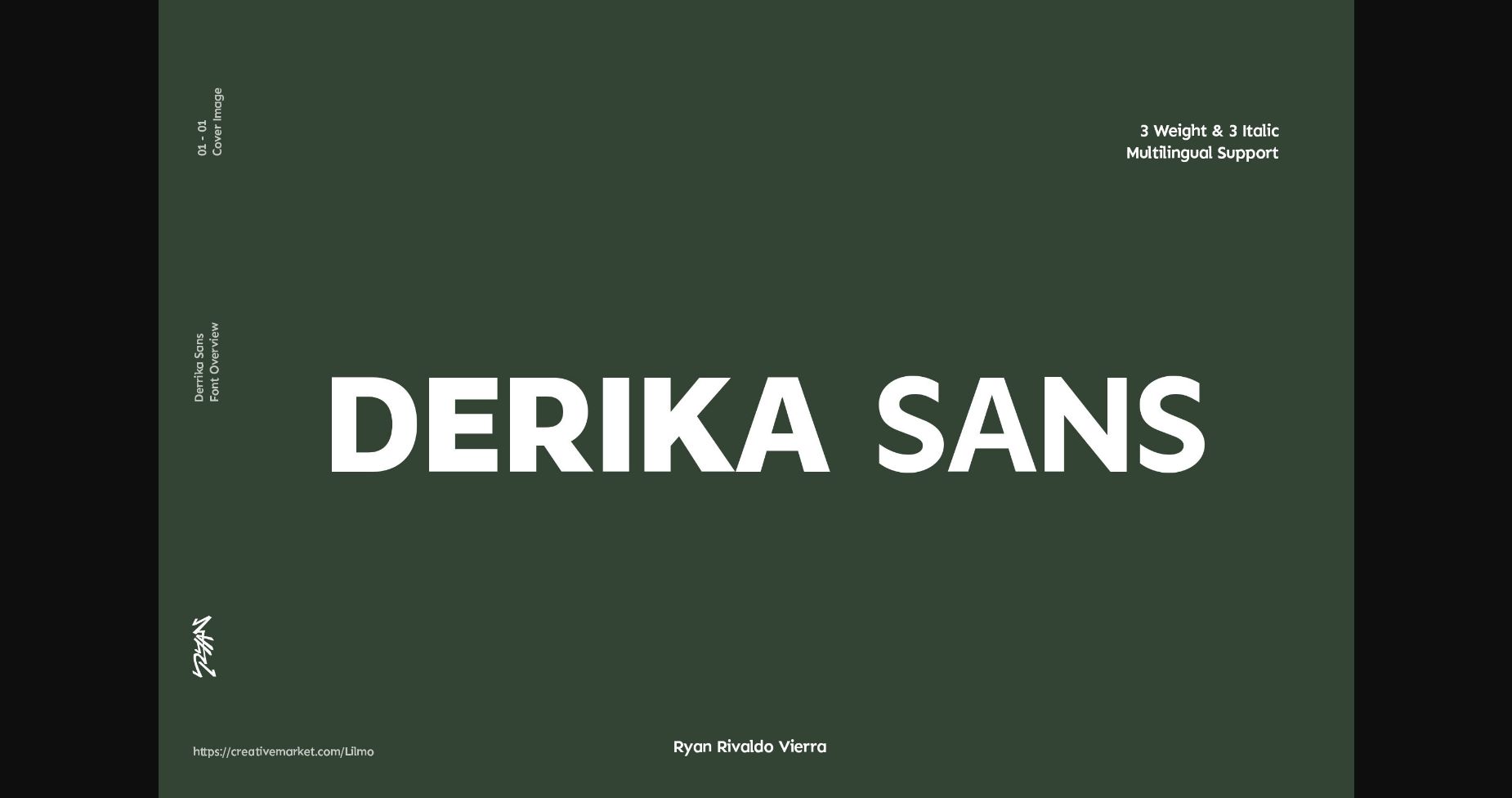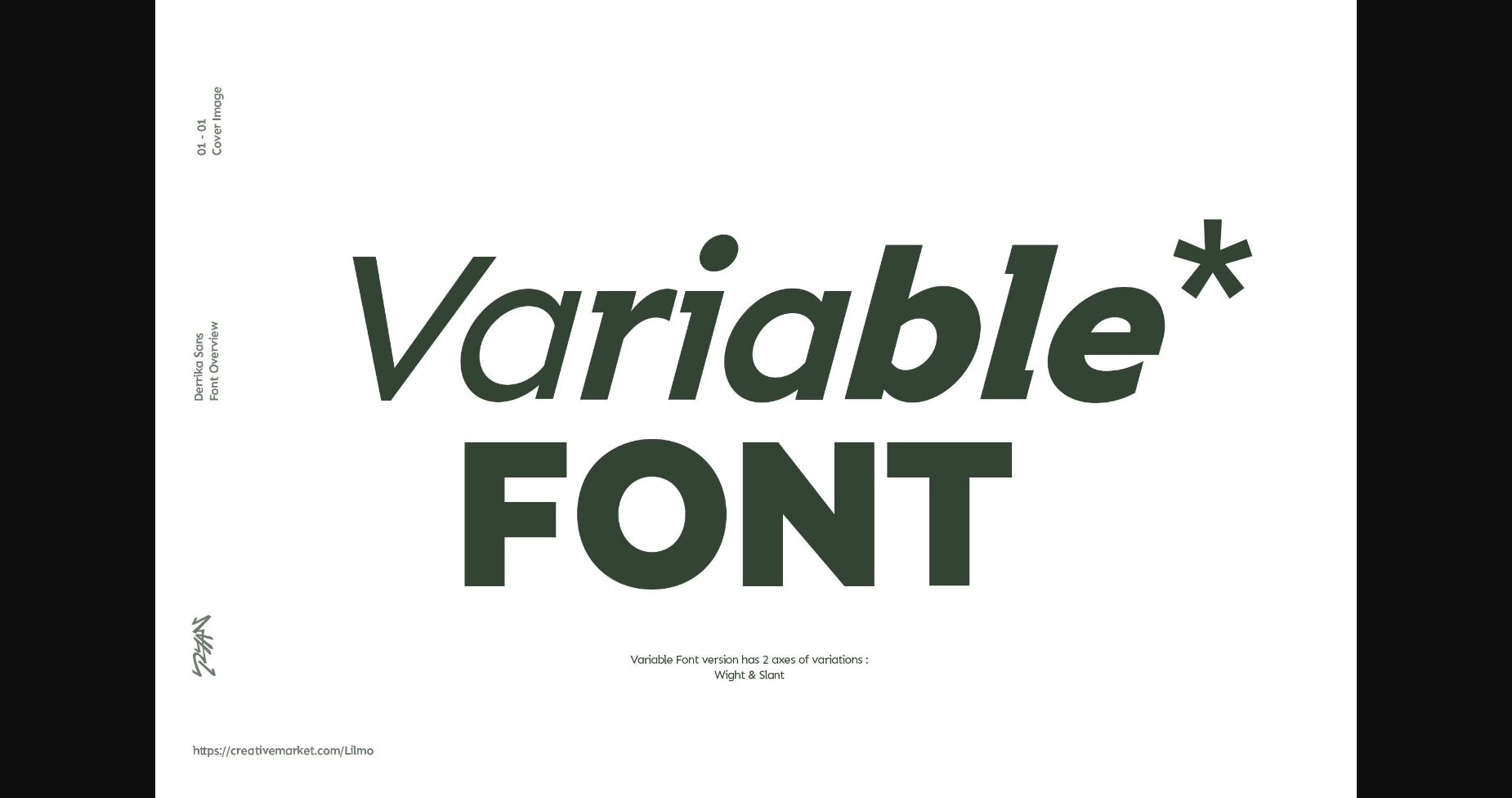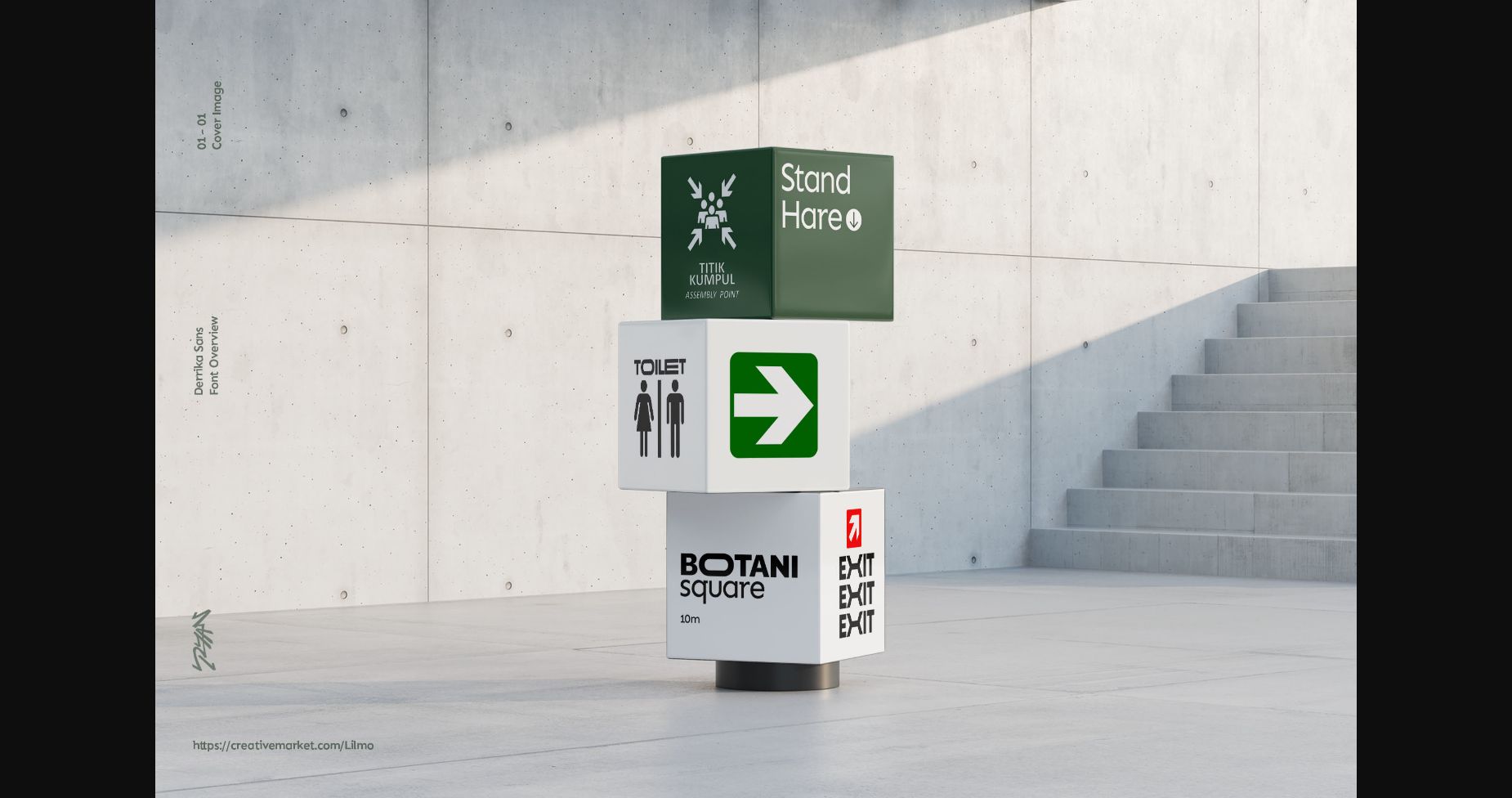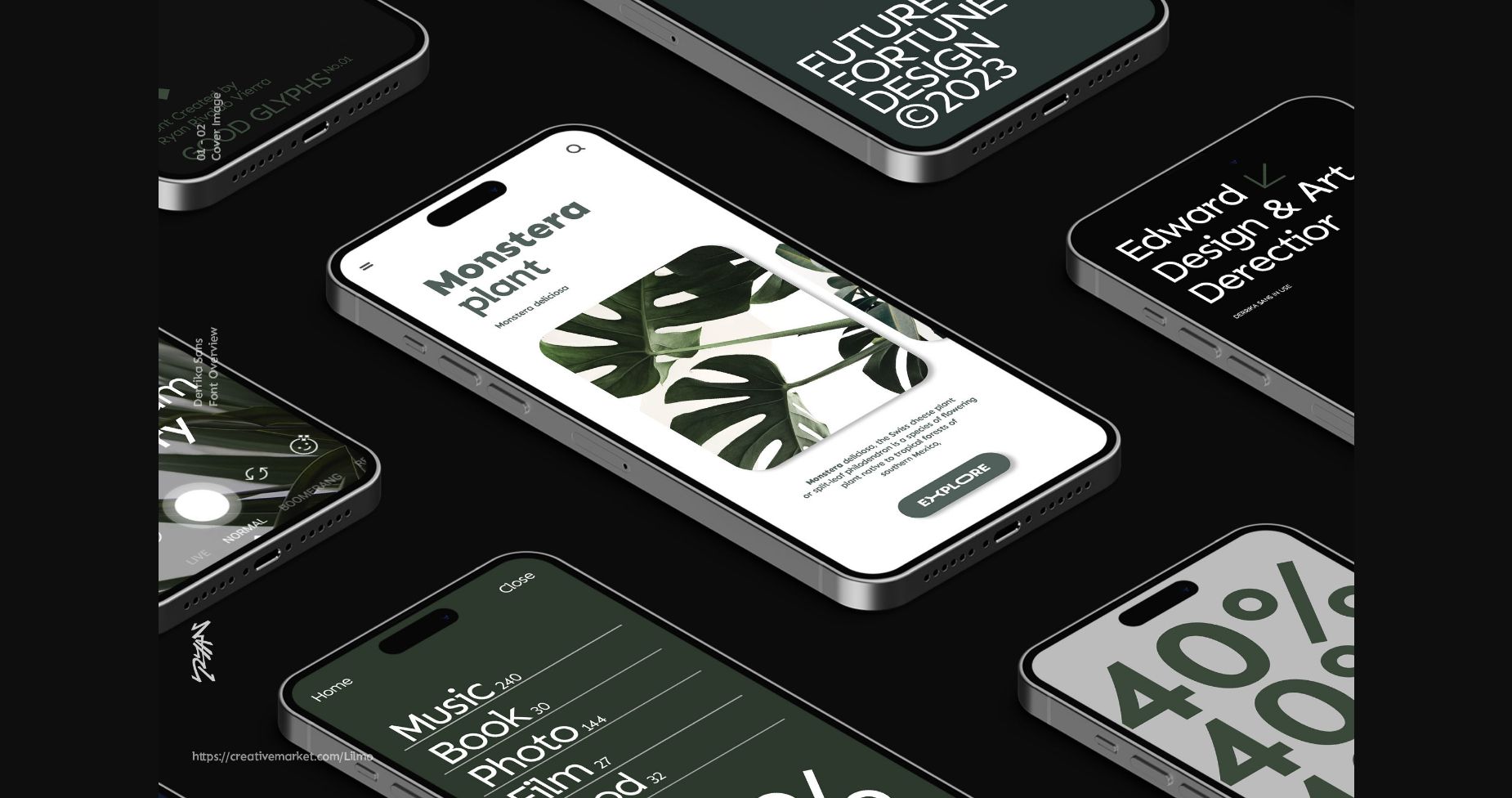
About Derika Sans Font
Derika Sans is a new font by Ryan Rivaldo Vierra. This font offers you a bold look that will be perfect for headlines, titles, branding, poster, and other eye-catching designs.